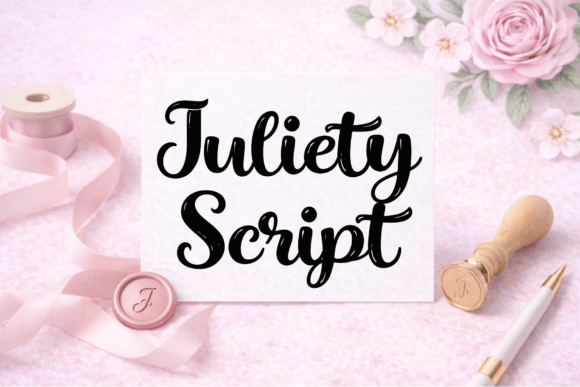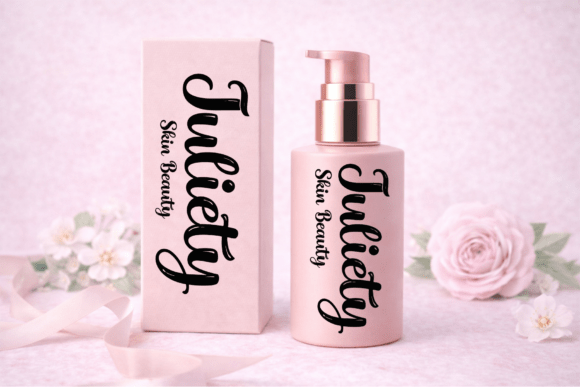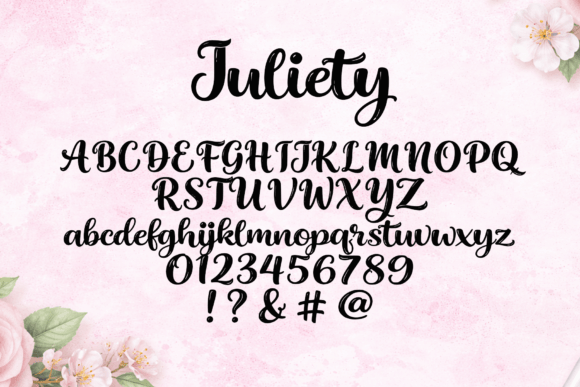
Introduction to Juliety Font
As designers, we’ve all been there – staring at a blank canvas, searching for the perfect font to bring our creative vision to life. It’s that moment of pure inspiration when the right font can elevate a design from bland to grand. For those seeking a sophisticated yet approachable font, look no further than the Juliety Font. This elegant script font combines smooth curves with classy strokes, making it a valuable addition to any designer’s toolkit.
Whether you’re working on a high-end branding project or a simple social media graphic, the Juliety Font is an adaptable design resource that can add a touch of sophistication to any creative endeavor. Its high quality and free download make it an attractive choice for designers of all levels, from beginners to seasoned pros.
With its versatility and charm, the Juliety Font is poised to become a go-to design element for designers seeking to add a dash of classic romance or modern flair to their projects.
Key Features of Juliety Font
- The Juliety Font is a high-quality design resource perfect for creative projects.
- The unique characteristics of Juliety Font, such as its elegant and sophisticated style, make it an ideal choice for designers seeking a high-end look.
Honest Review: Juliety Font
I recently came across the Juliety Font and was excited to dive in and see what it had to offer. As a designer, I’m always on the lookout for high-quality design resources that can elevate my creative projects.
The Juliety Font is a beautiful, elegant script font that’s perfect for adding a touch of sophistication to your designs. One of the things that stood out to me was the transparent background option, which allows you to easily overlay the font on top of images or other design elements.
Here are some things that work well with the Juliety Font:
- ✨ High-quality design with smooth lines and curves
- ✨ Wide range of language support, making it perfect for international designs
While the Juliety Font is a great addition to any design library, there are a few limitations to keep in mind:
- ⚠️ Limited font sizes available, which may limit its use in certain design contexts
- ⚠️ Not as versatile as some other fonts, which may limit its use in certain creative projects
Overall, I’m impressed with the Juliety Font and think it’s a great option for designers looking for a high-quality script font. While it may have a few limitations, its unique style and transparent background option make it a valuable addition to any design library.
Juliety Font is a high-quality design resource that offers a transparent background, making it ideal for creative projects that require a modern and sleek aesthetic.
Tips for Getting the Most Out of Juliety Font
Some tips for getting the most out of Juliety Font include:
1. Use the font in conjunction with other design elements to create a cohesive look.
2. Experiment with different font sizes and colors to add visual interest.